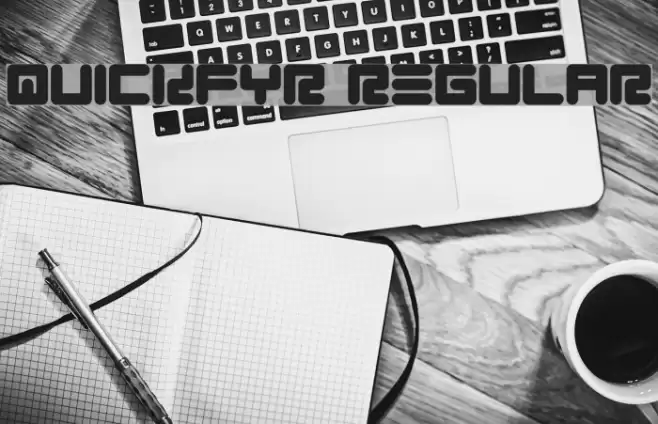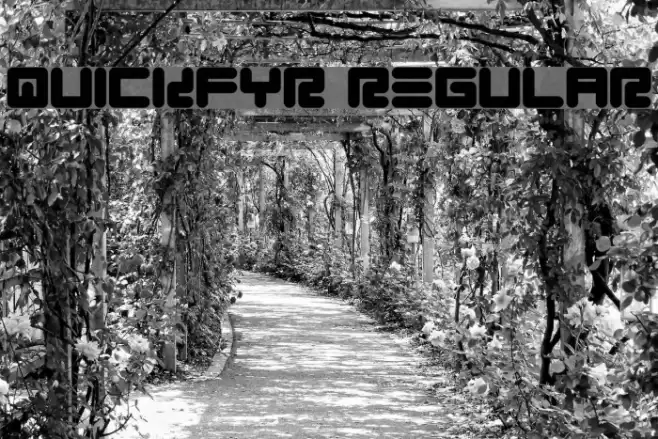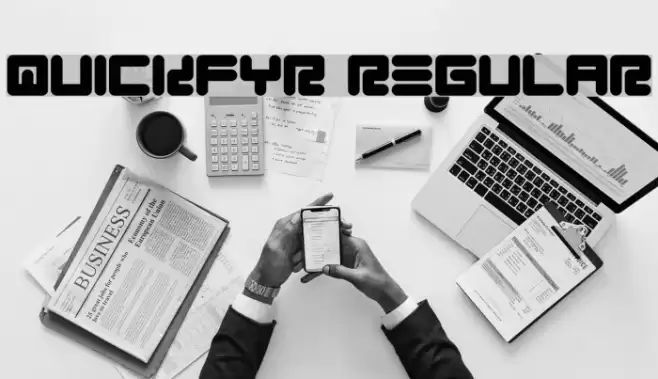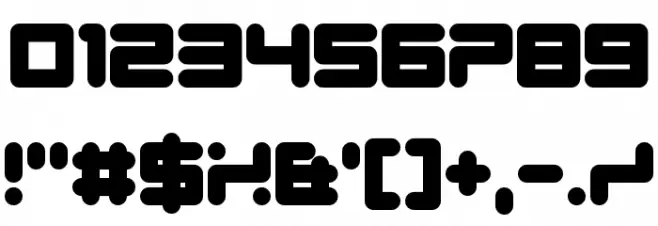
Quickfyr Regular Font
Quickfyr Regular Description
This font features a bold, futuristic design with rounded edges and a geometric structure. The characters are constructed with a consistent thickness, giving it a uniform appearance. The style is reminiscent of digital or sci-fi themes, making it ideal for projects that require a modern and tech-savvy look. The uppercase and lowercase letters maintain a similar height, enhancing its cohesive design. The numbers and special characters follow the same stylistic approach, ensuring a seamless integration across different text elements.
A bold, futuristic font with rounded edges and a geometric structure from Uncategorized fonts.
- Proposed Projects: Ideal for tech-related branding, sci-fi posters, video game titles, and digital interfaces.